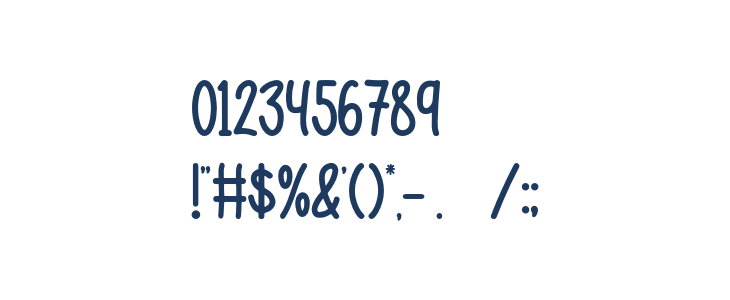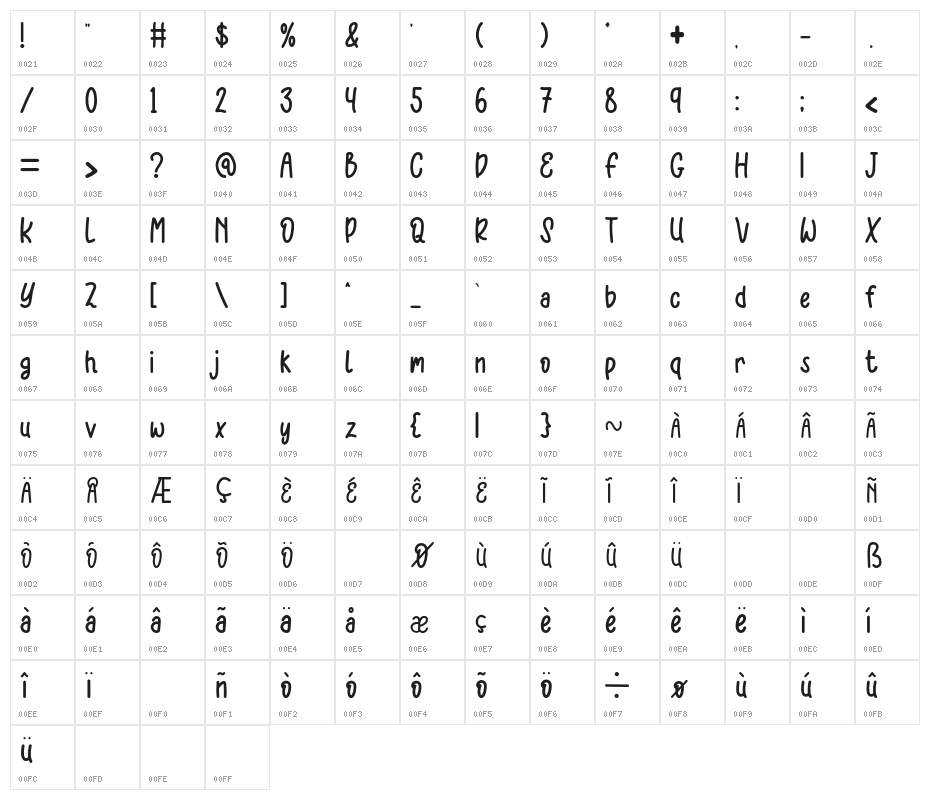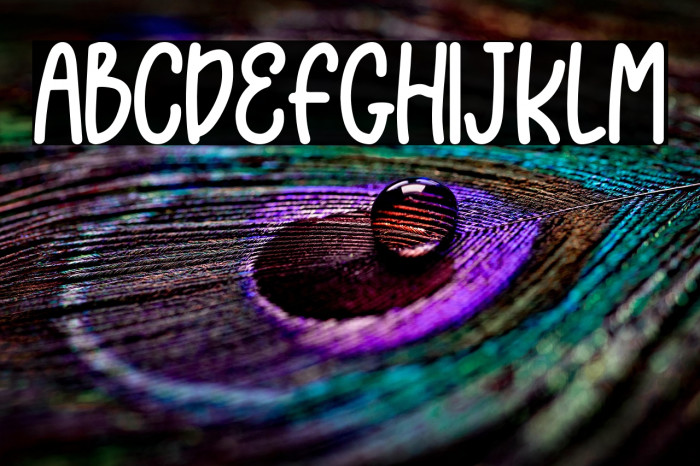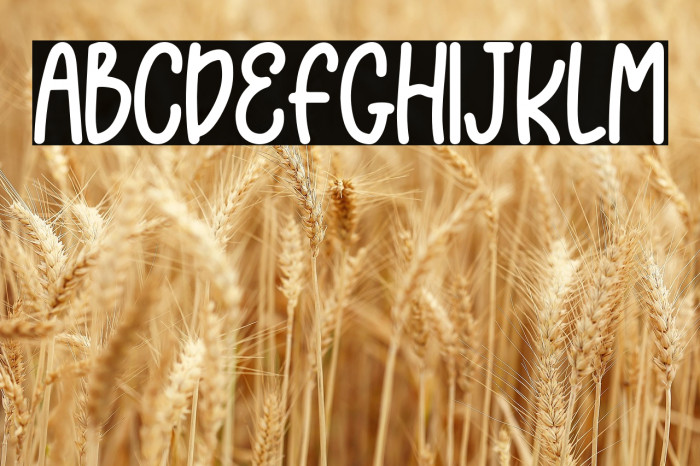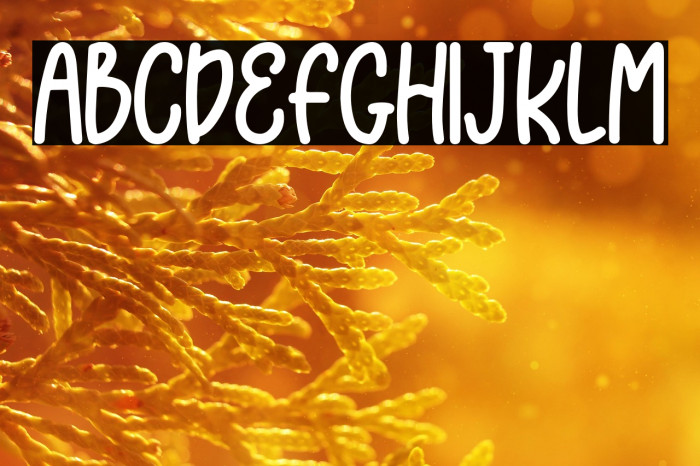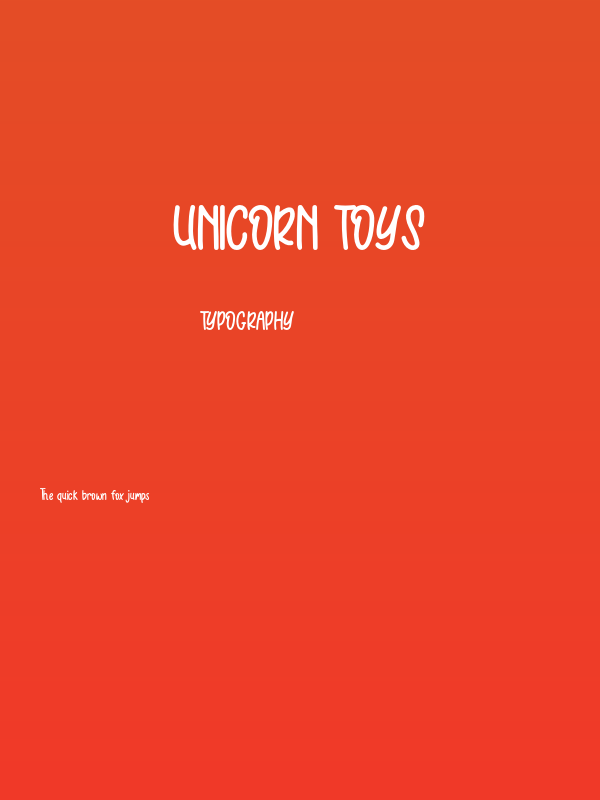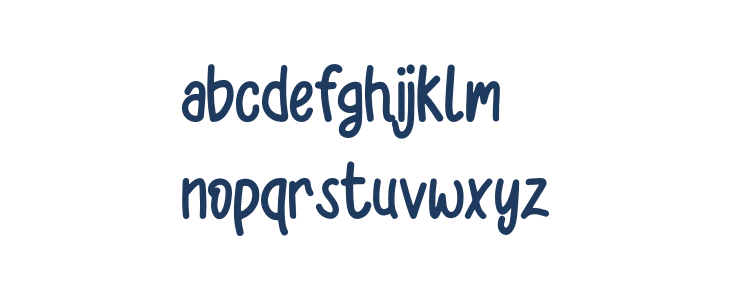
Unicorn Toys Font
Unicorn Toys Description
This playful and whimsical font features a handwritten style with rounded edges and a casual, friendly appearance. The characters are slightly irregular, adding to the charm and personality of the typeface. It maintains a consistent stroke width, giving it a uniform look while still retaining a sense of individuality in each letter. The font is highly legible, making it suitable for both display and informal text settings. Its unique style is perfect for projects that require a touch of fun and creativity, such as children's books, playful branding, or casual invitations.
| Use Case | Headlines, Logos, Informal text |
| Proposed Projects | Ideal for children's books, playful branding, casual invitations, and creative projects. |